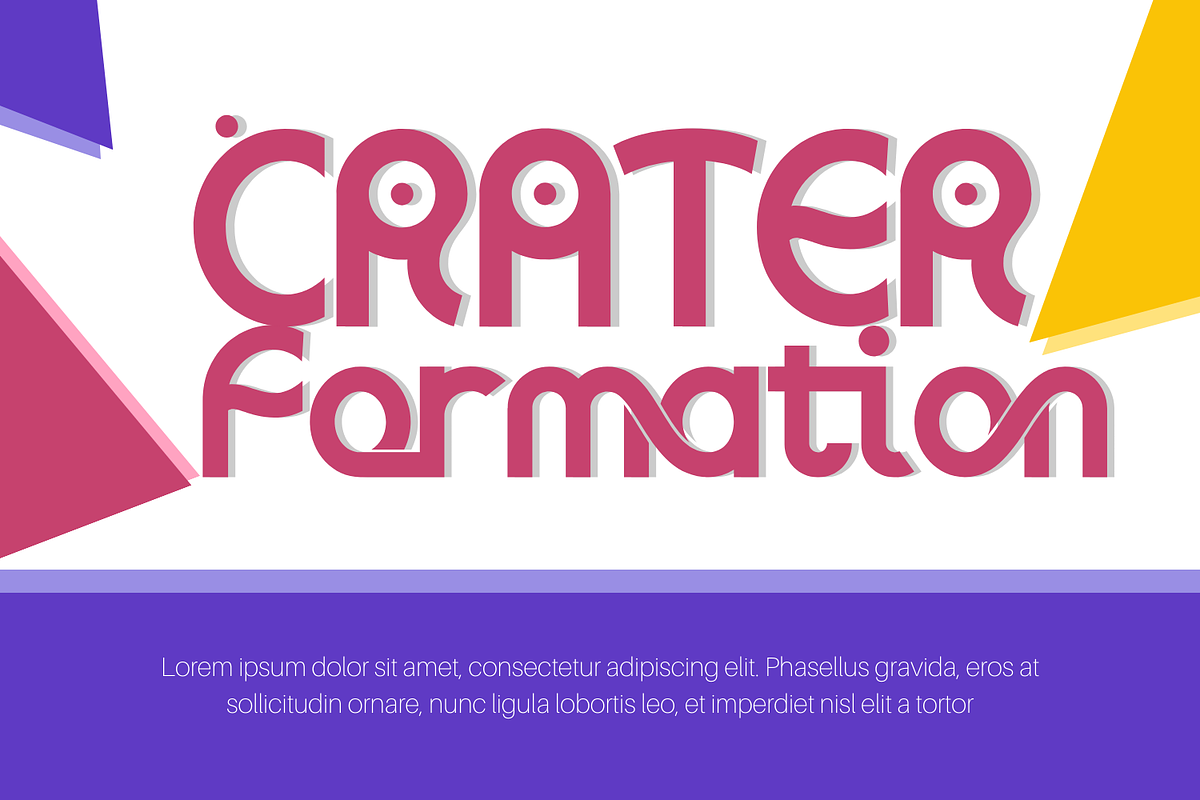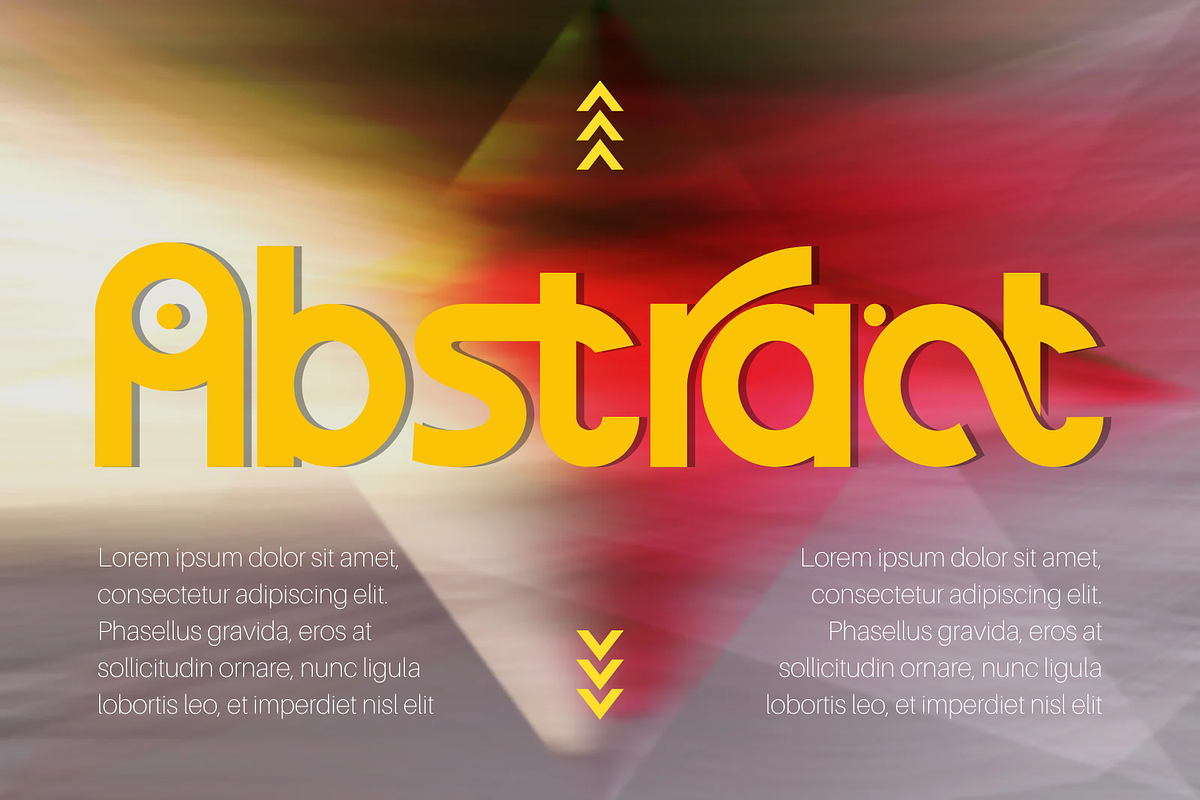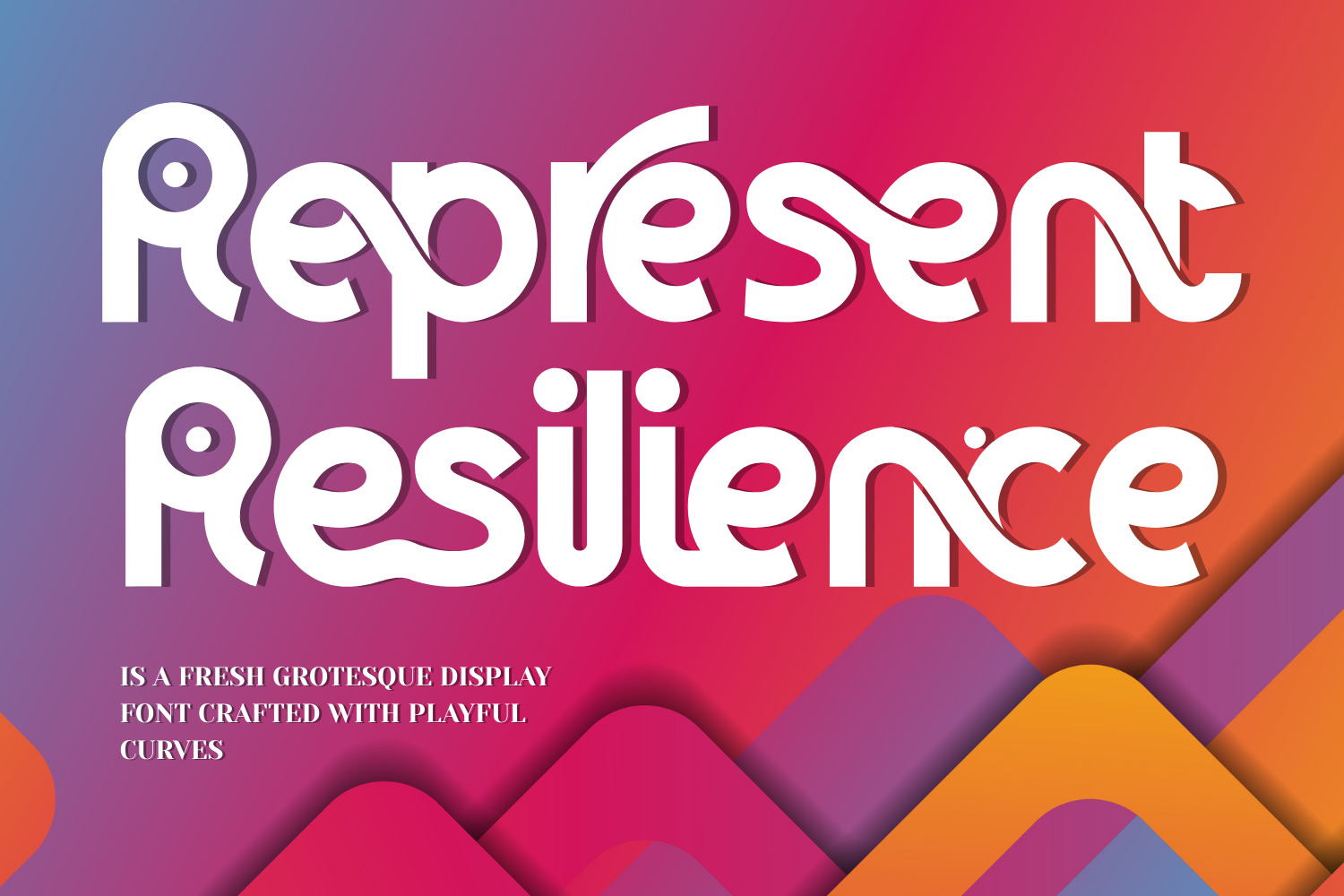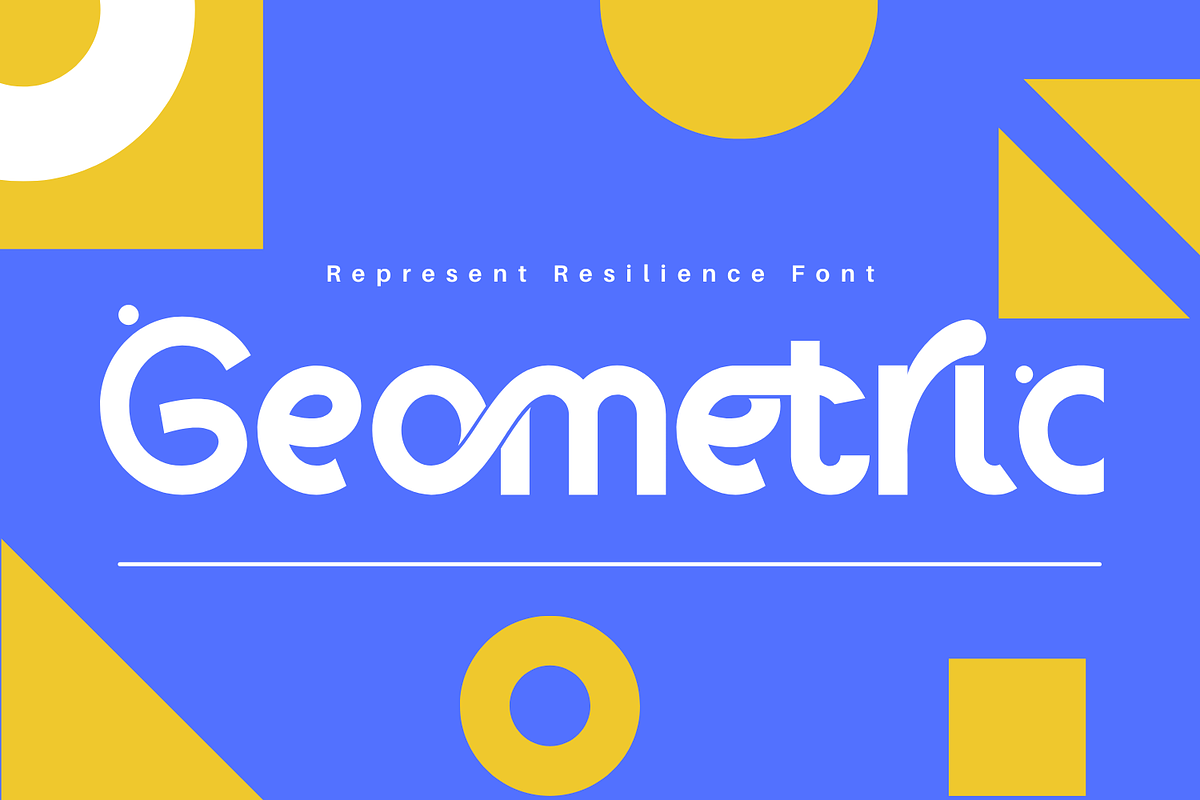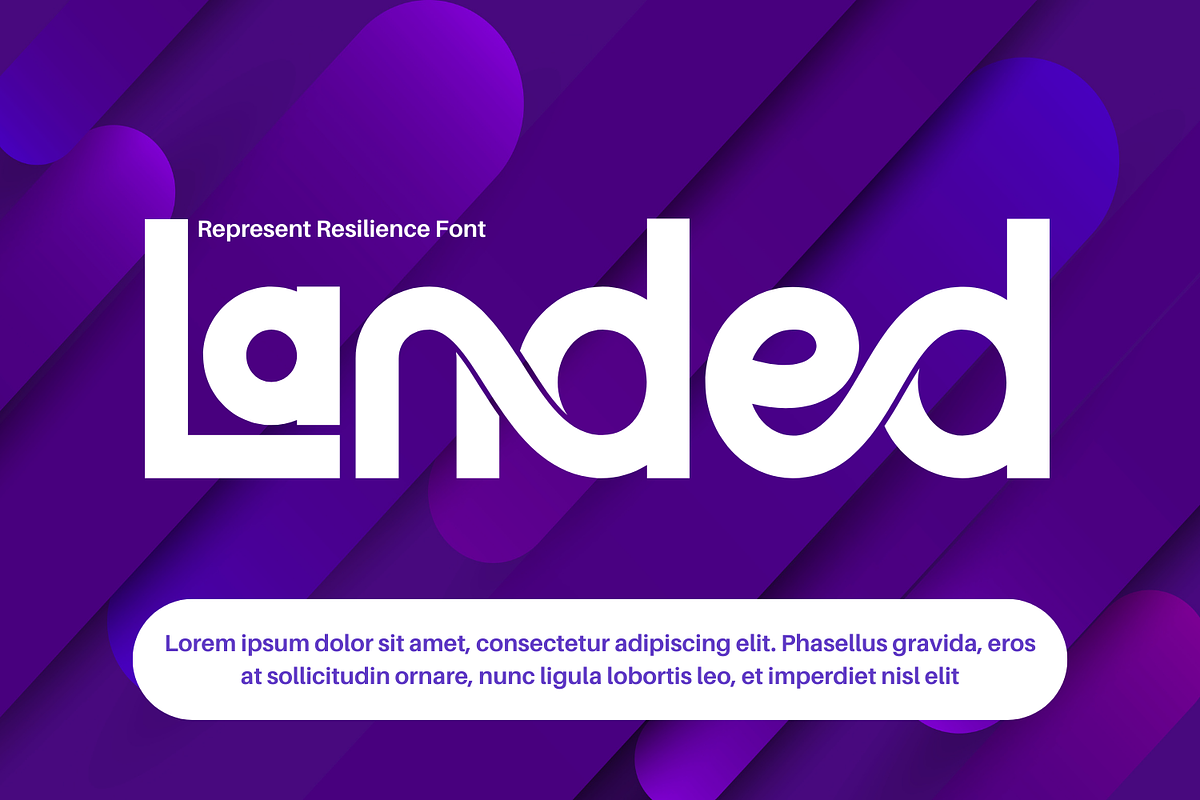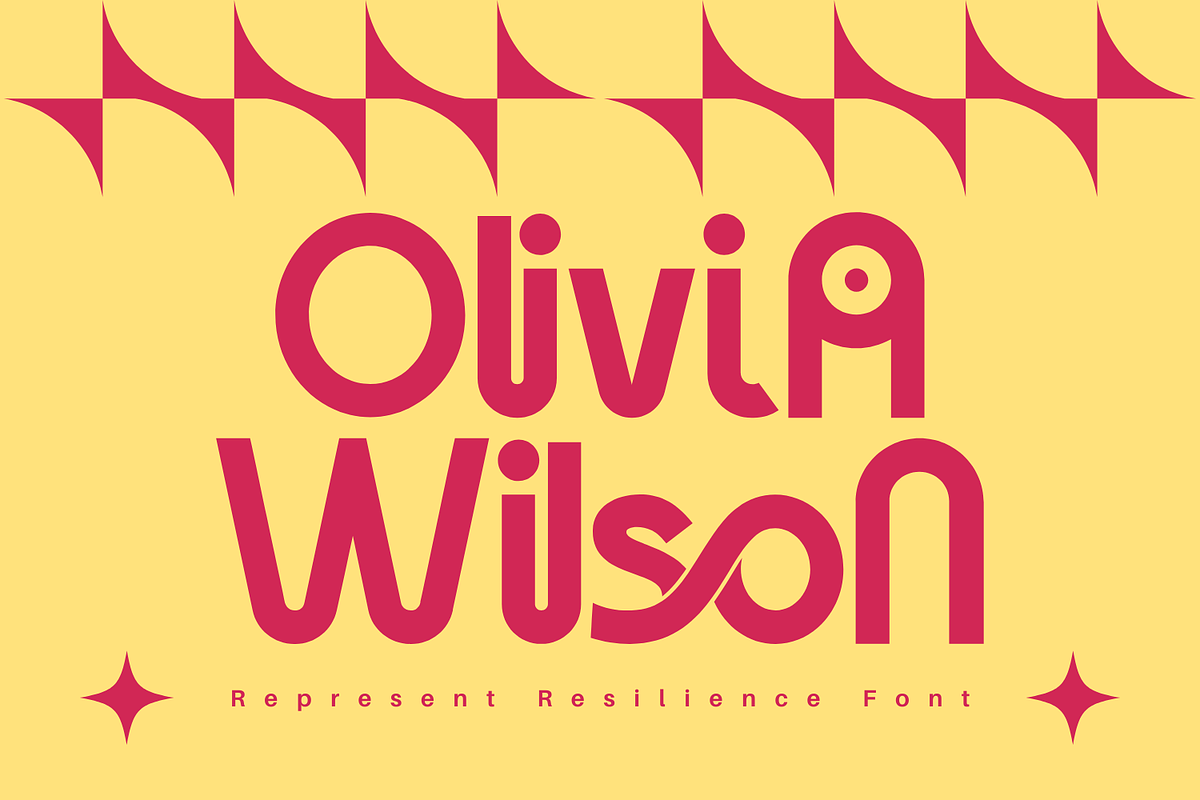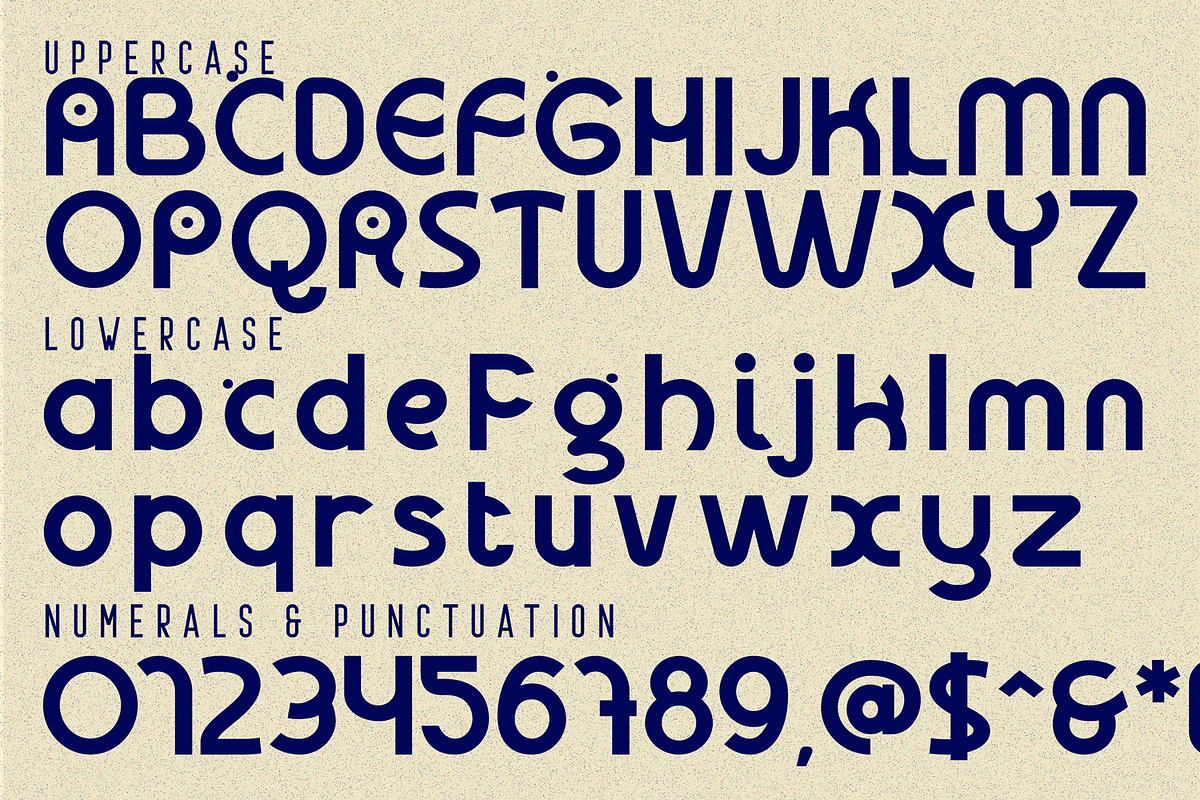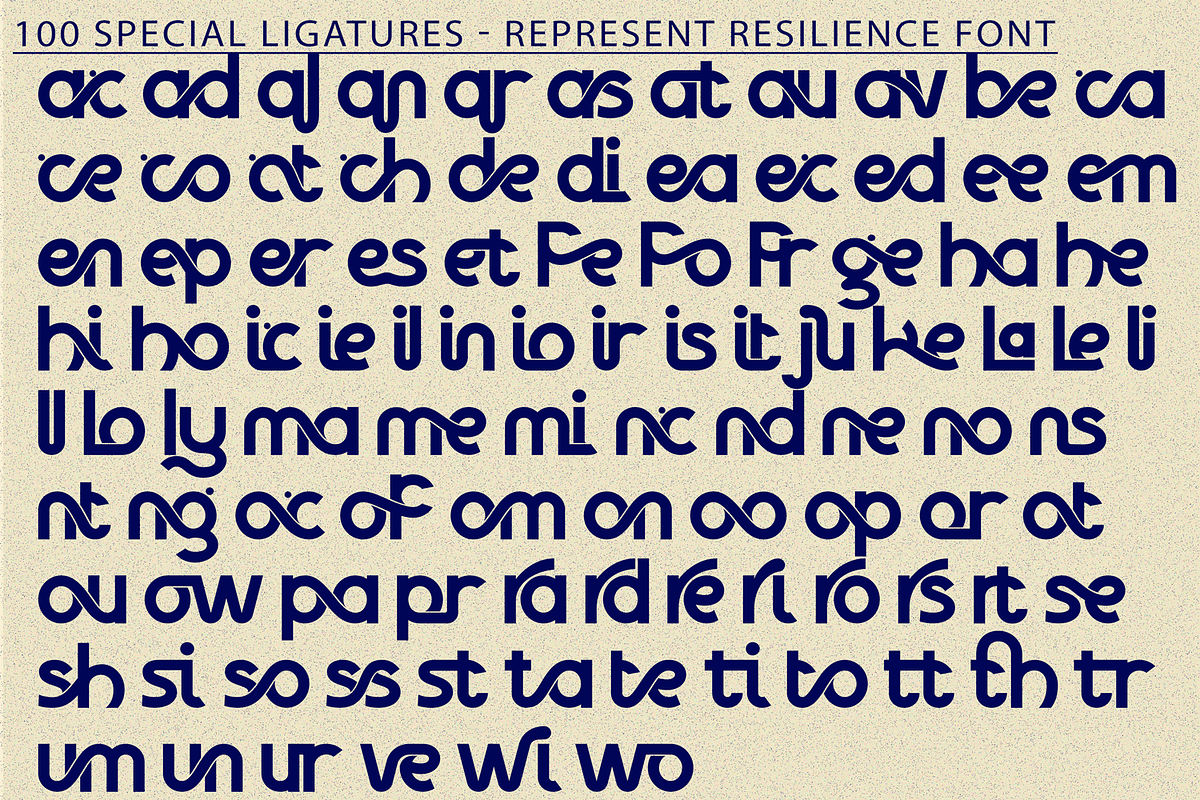
Represent Resilience - Art Deco Font
Represent Resilience - Art Deco Font is a bold retro rounded display sans-serif inspired by 70s psychedelic typography and modern soft geometry. Built with smooth curves, thick strokes, and playful flowing terminals, this typeface delivers a warm and expressive personality while maintaining strong visual impact. Its balanced geometric foundation combined with organic curved details creates a dynamic rhythm that feels both nostalgic and contemporary. Represent Resilience is perfect for branding, posters, packaging, social media graphics, and standout headlines that demand attention.
- Uppercase & Lowercase Letters
- Around 100 Special Ligatures & Alternates
🔤About 100 ligatures combined with Stylistic Alternates Font:
ac ad al an ar as at au av be ca ce ch co ct de di ea ec ed ee el em en ep er es et fe fo fr ge ha he hi ho ie ic il in io ir is it ju ke la le li ll lo ly ma me mi nc nd ne ng no nt ns oc of om on oo op or ot ou ow pa pr ra rd re ri ro rs rt se sh si so ss st ta te th ti to tr tt um un ur ve wi wo